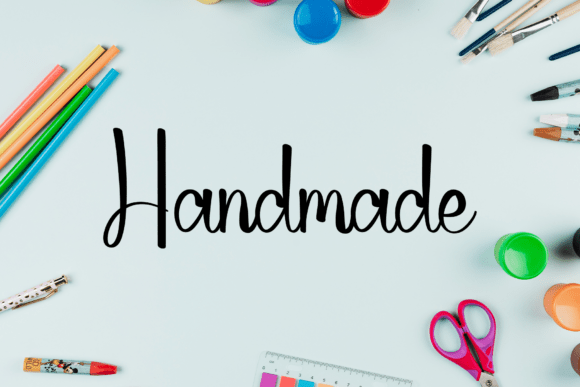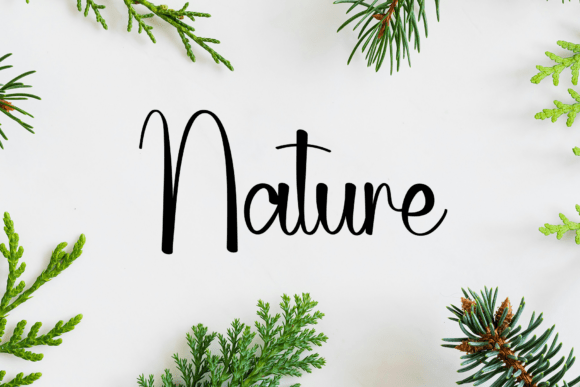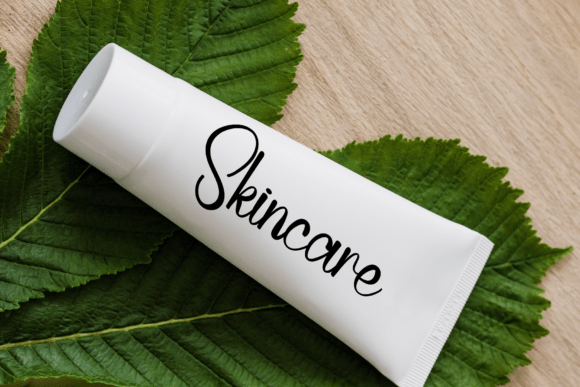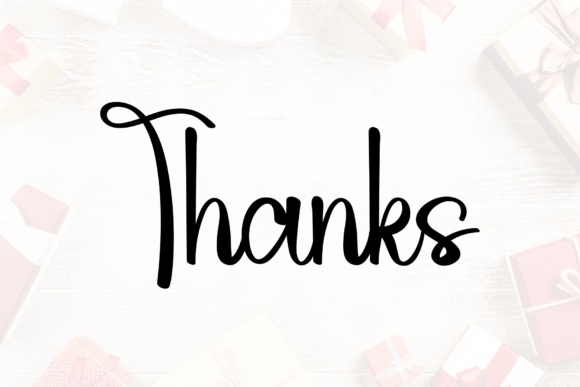
Celebrate the Art of Romance and Giving with Giftaway Valentine Font
Are you looking for a font that embodies the essence of romance and elegance? Look no further than the Giftaway Valentine font. This exquisite handwriting font is designed to capture the fluid, cursive movement of a love letter written in a hurry, making it the perfect addition to any romantic or high-end project.
The Unique Characteristics of Giftaway Valentine Font
The Giftaway Valentine typeface is characterized by its varying line weights and graceful, sweeping loops, which give it an intimate, elegant, and deeply emotive feel. The font is designed to mimic natural penmanship, offering a “bespoke” feel that adds instant value and personality to any project. Whether you’re working on a Valentine’s Day promotion, a wedding “Save the Date,” or a luxury gift branding campaign, the Giftaway Valentine font is the ultimate tool.
Perfect for Seasonal Marketing and Luxury Gift Branding
The Giftaway Valentine font is specifically designed for seasonal marketing and luxury gift branding. Its elegant and sophisticated design makes it perfect for Valentine’s Day promotions, wedding announcements, and high-end product branding. Imagine using this font to create a stunning rose gold embossed logo for a luxury gift box or as the main header for a bridal boutique’s website.
Versatile and Easy to Pair
One of the best things about the Giftaway Valentine font is its versatility. It excels when used as an overlay on soft-focus photography, adding a touch of elegance and sophistication to any image. It also pairs beautifully with elegant serif fonts, creating a classic and timeless look. Whether you’re a designer or a crafter, you’ll love how easily this font integrates into your projects.
Authentic and Handwritten Rhythm
The Giftaway Valentine font boasts an authentic, handwritten rhythm that ensures your projects stand out from the crowd. Its natural, flowing script makes it perfect for creating romantic and luxurious designs that capture the essence of love and giving. With this font, you can create designs that feel personal, bespoke, and truly special.
Ideas for Using Giftaway Valentine Font
So, how can you use the Giftaway Valentine font in your projects? Here are a few ideas to get you started:
- Valentine’s Day promotions: Create stunning Valentine’s Day cards, posters, and social media graphics with the Giftaway Valentine font.
- Wedding announcements: Use the font to create beautiful wedding “Save the Dates,” invitations, and ceremony programs.
- Luxury gift branding: Add a touch of elegance to your luxury gift branding with the Giftaway Valentine font.
- Jewelry and perfume branding: Use the font as a sophisticated signature for jewelry and perfume brands.
- Romantic overlays: Add the font as an overlay to soft-focus photography for a romantic and elegant touch.
In conclusion, the Giftaway Valentine font is a beautiful and elegant handwriting font that captures the essence of romance and giving. Its unique characteristics, versatility, and authentic handwritten rhythm make it the perfect addition to any romantic or high-end project. Whether you’re a designer or a crafter, you’ll love working with this font. So why wait? Get creative with the Giftaway Valentine font today and make your projects truly special.